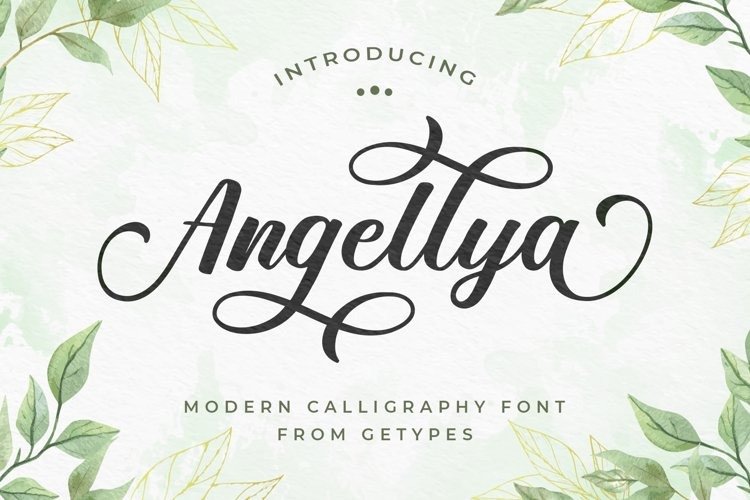
Angellya Font
Angellya Calligraphy Font is a unique blend of classic and modern font manufactured by Getypes Studio. imperfect style ups and downs, like a dance letters, smooth, clean and simple. It’s a chic, refined script font that emanates sophistication and elegance. It’s stylish alternates and ligatures make this incredibly feature rich font the perfect match for any project.